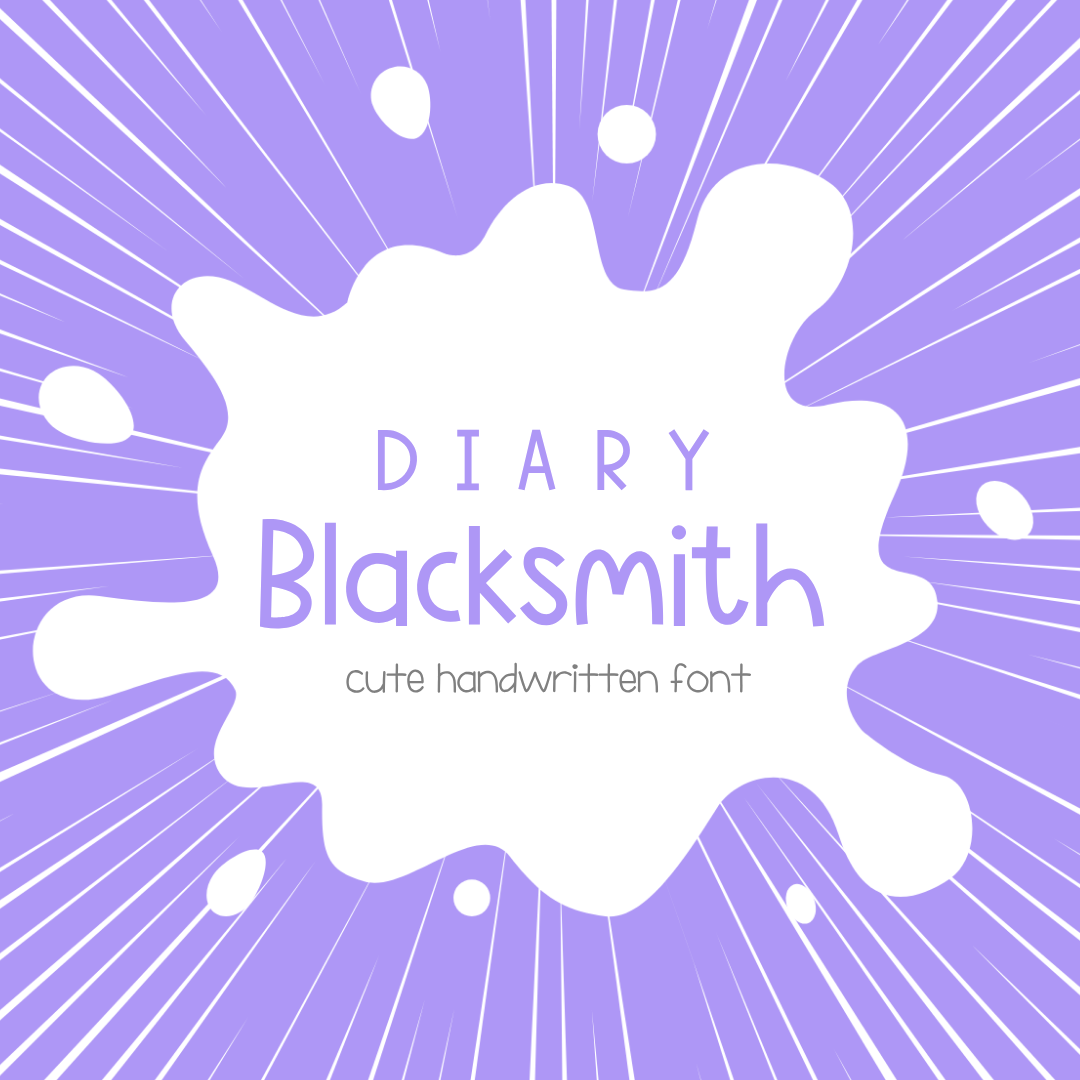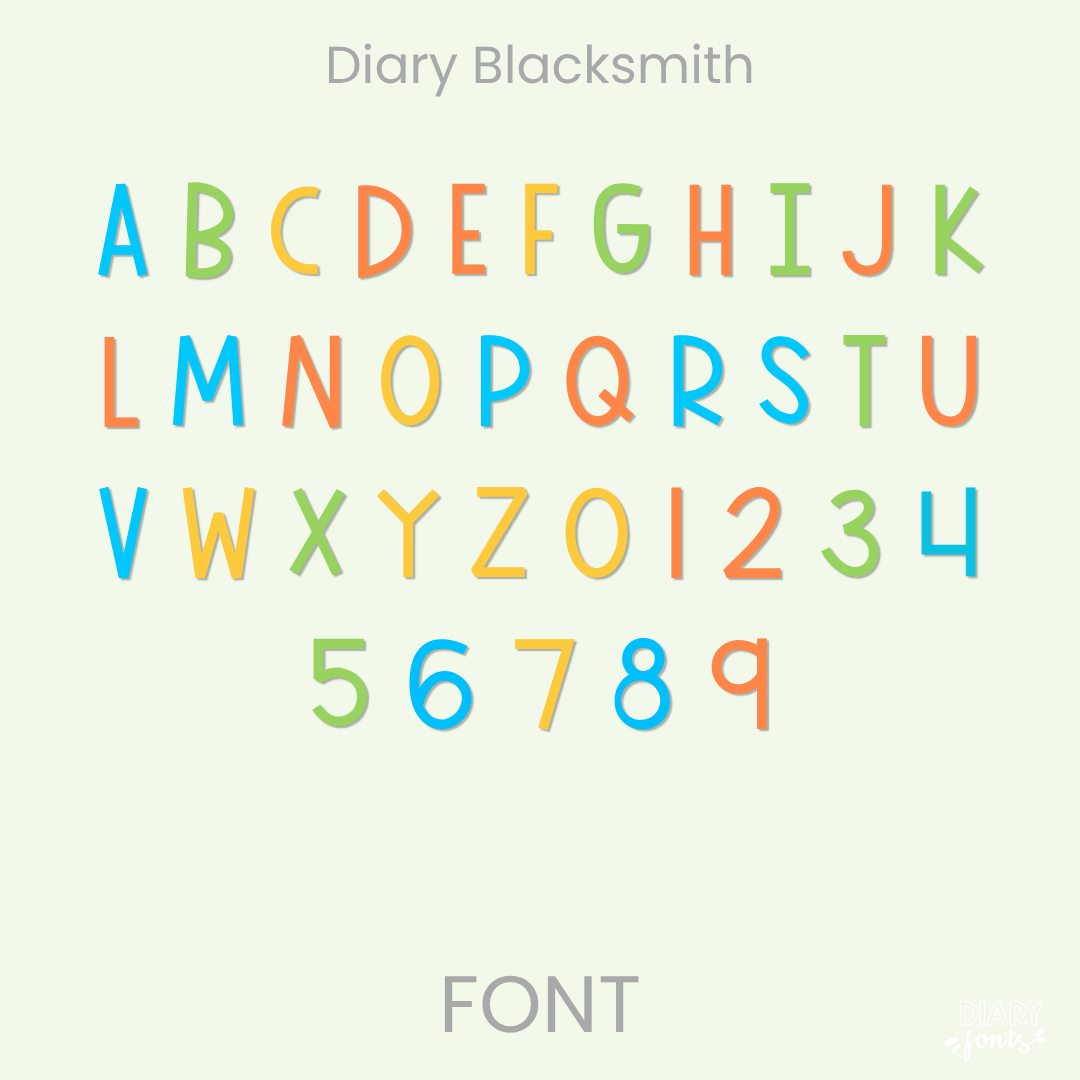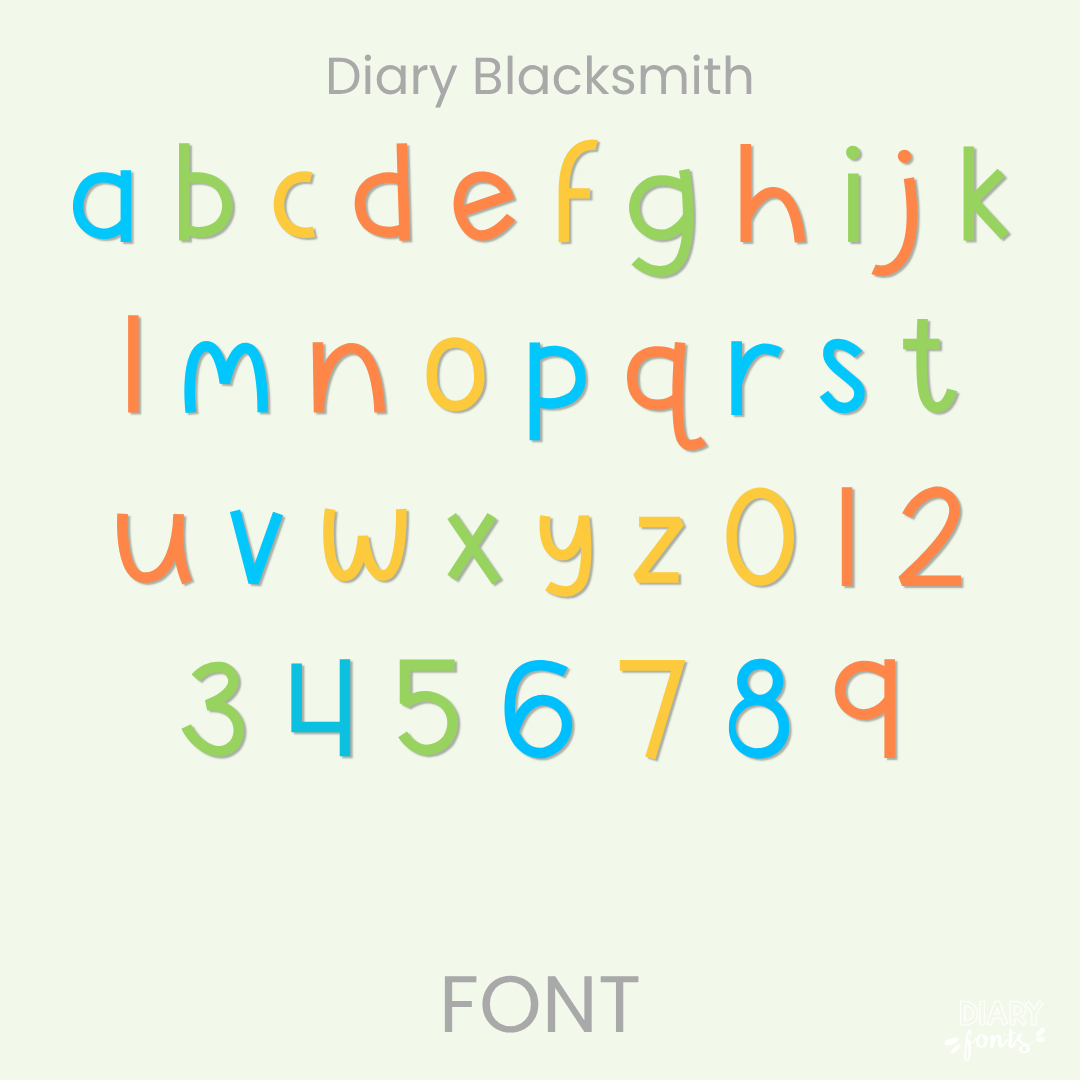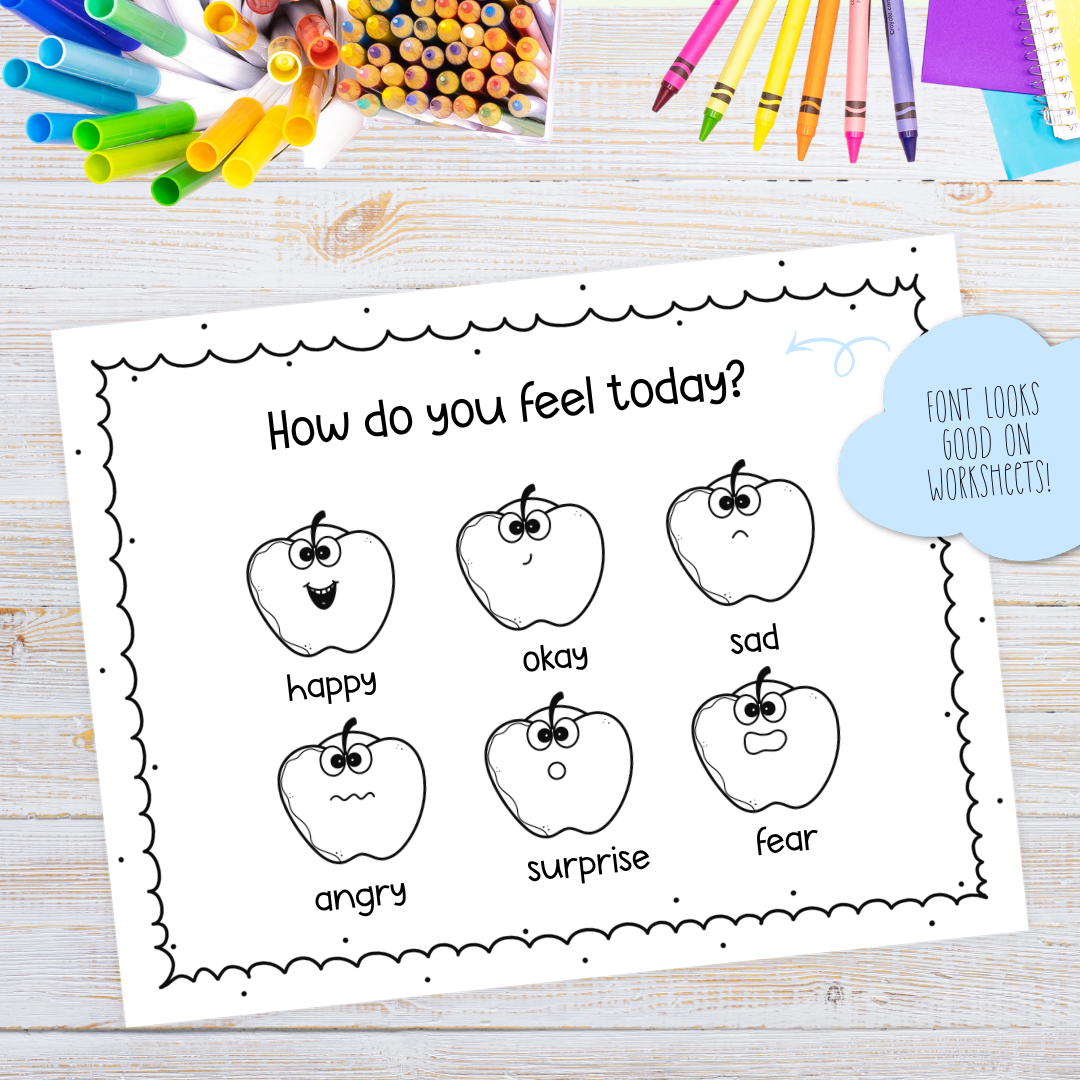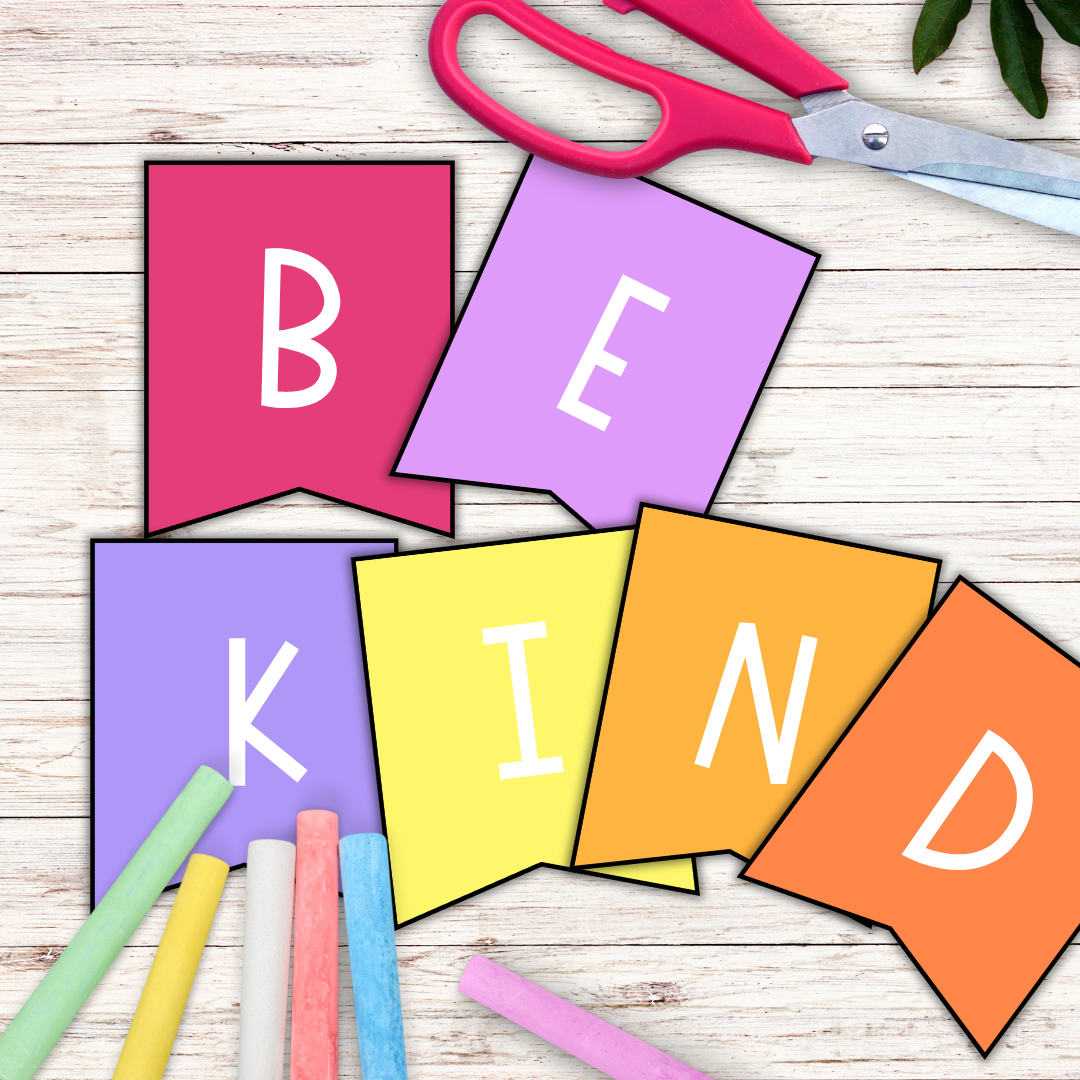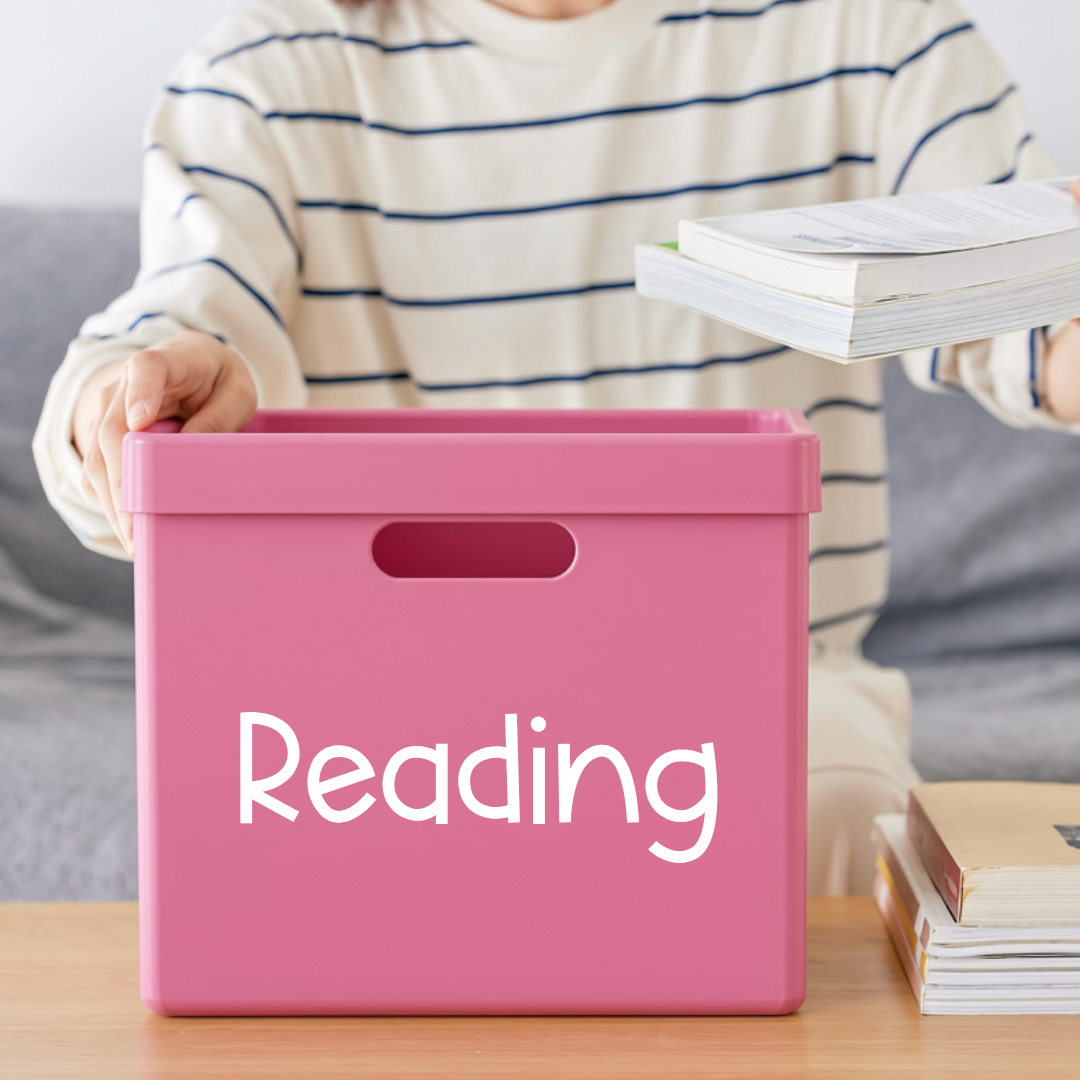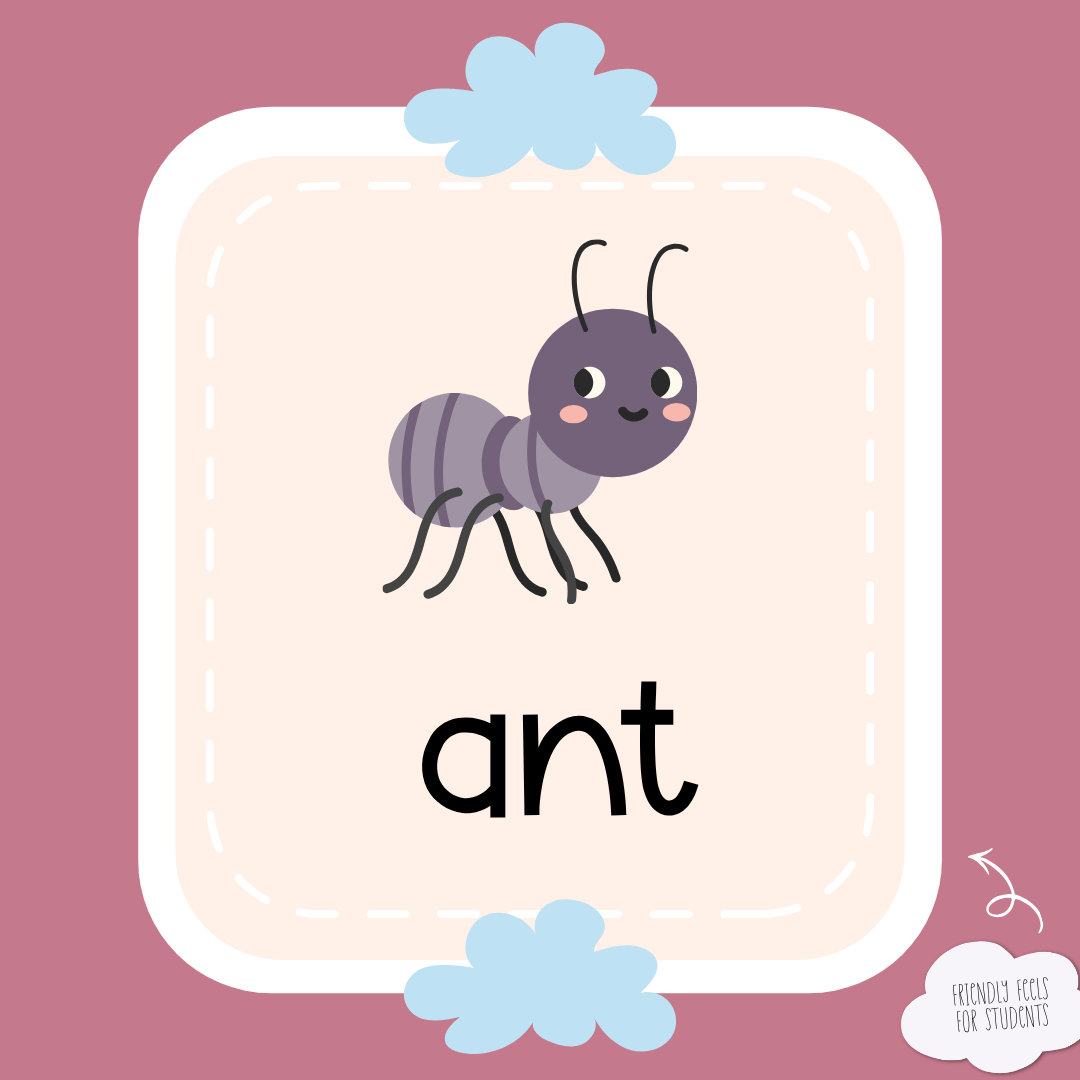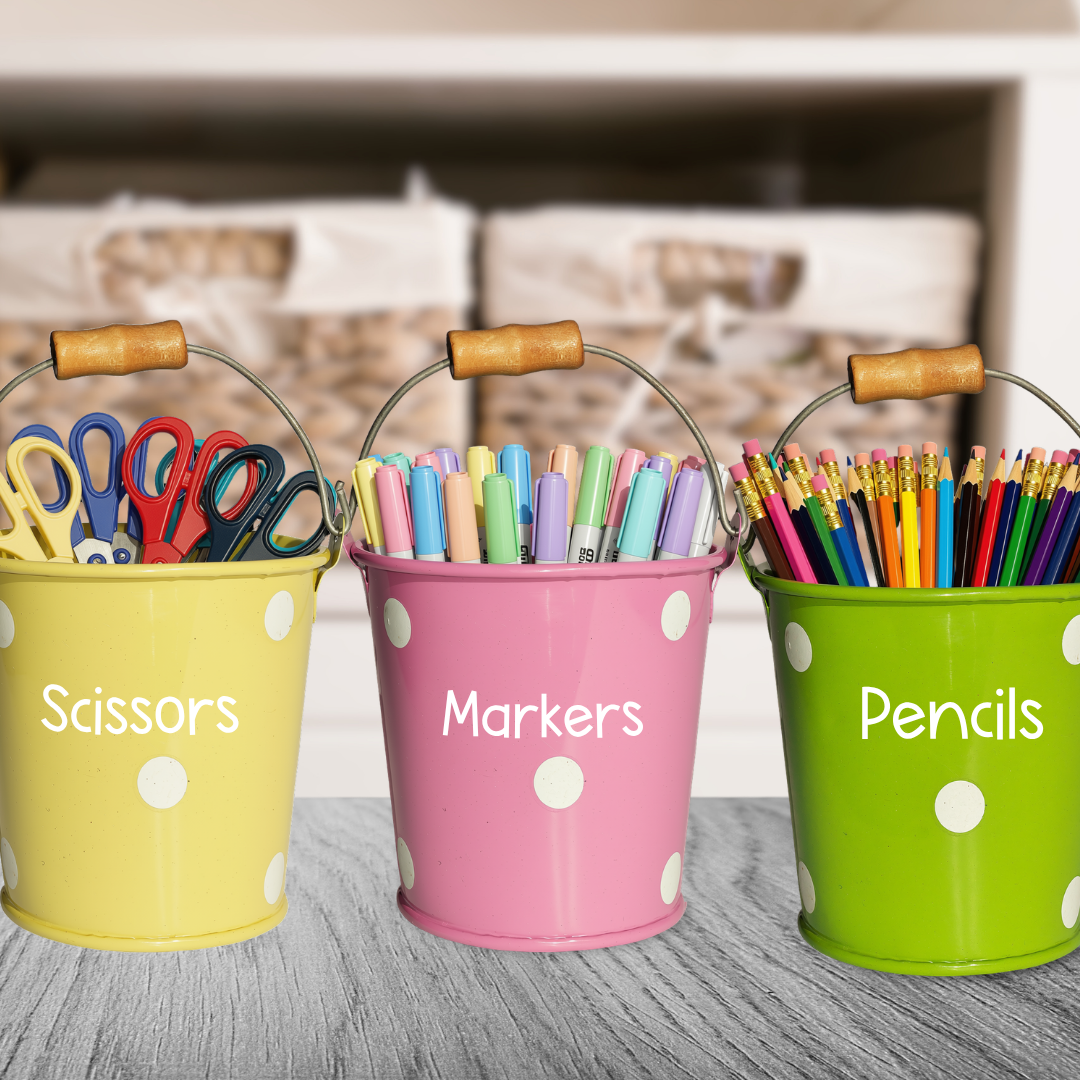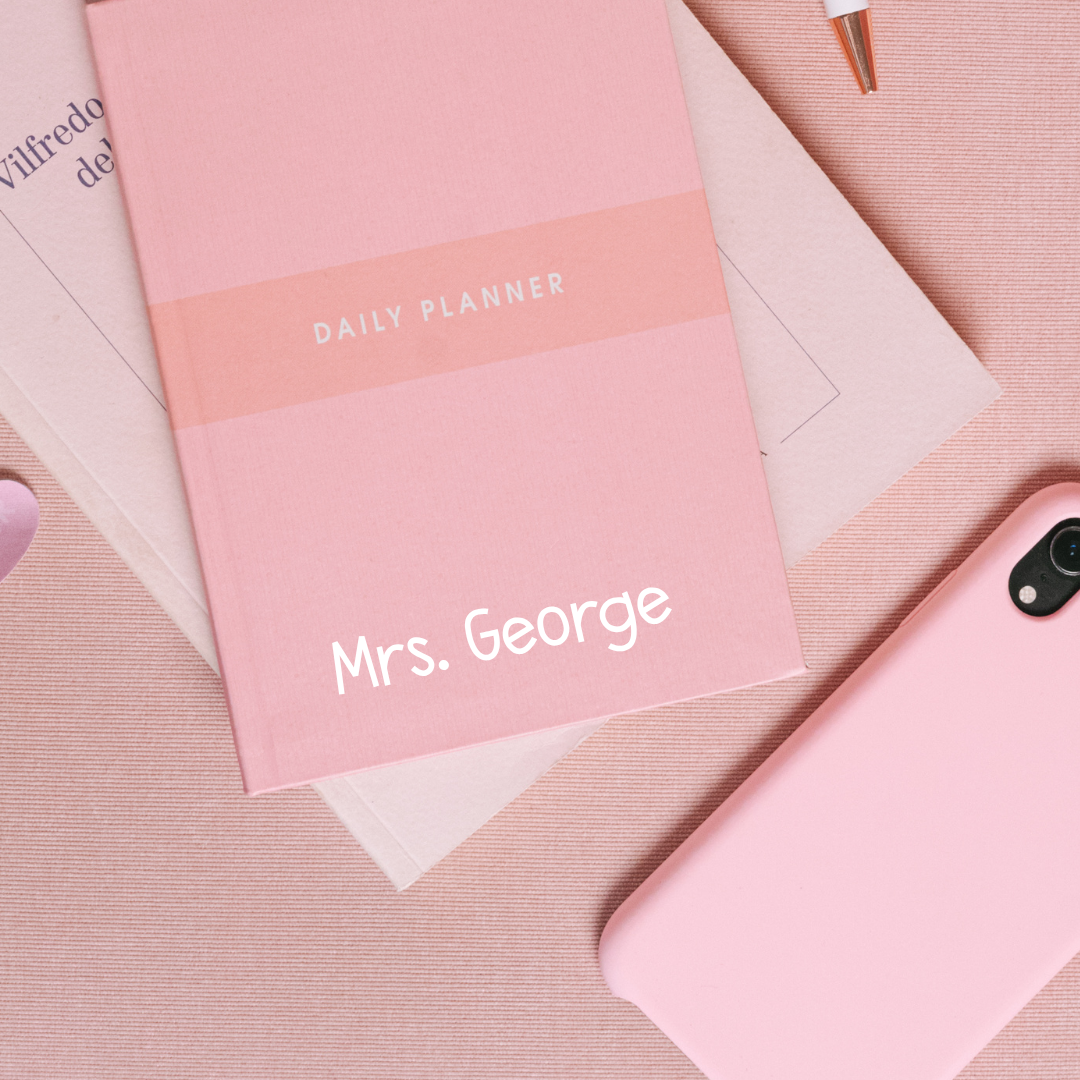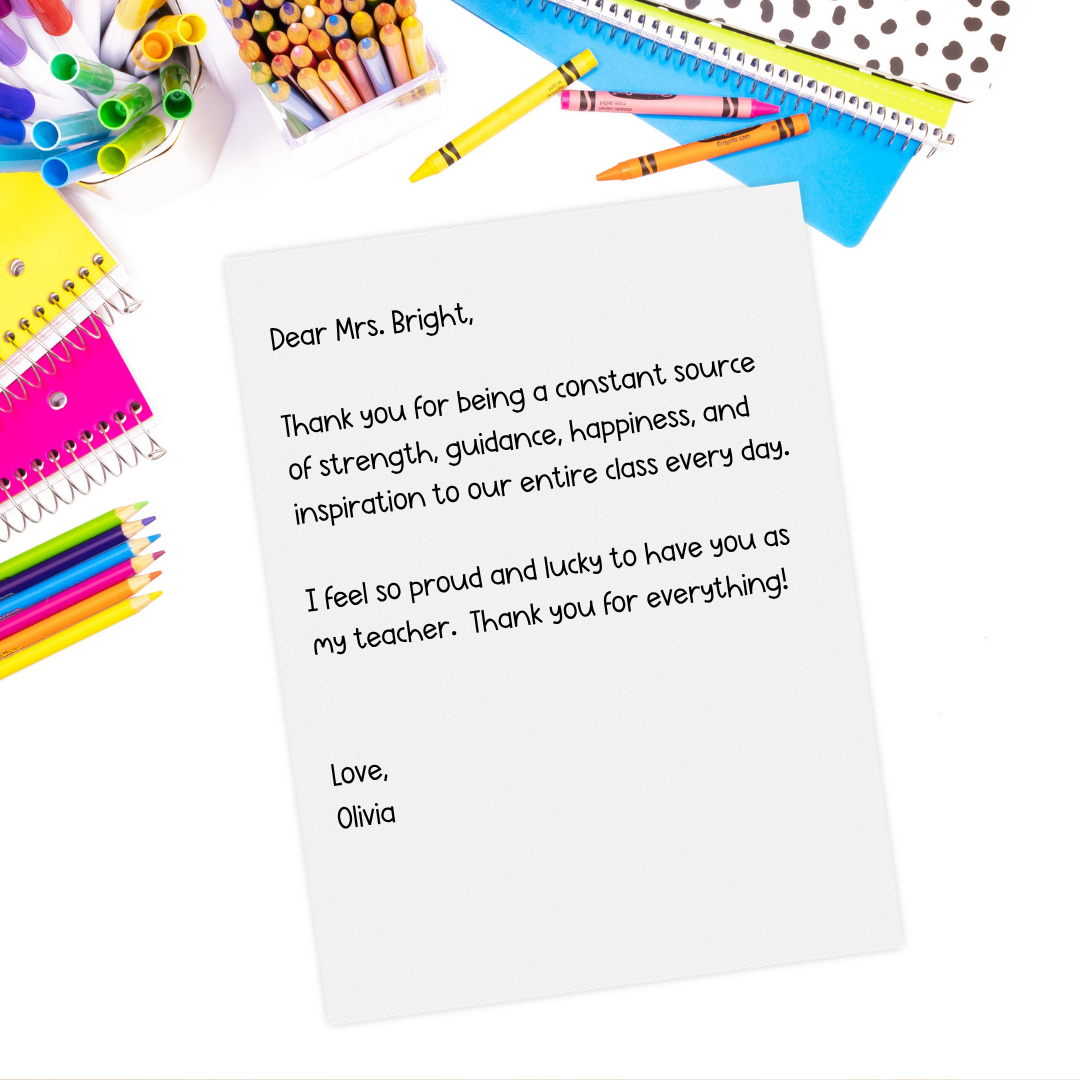
If you’ve been searching for a go-to primary font that captures all the natural, sweet charm of hand-lettered print while keeping your resource layouts looking incredibly structured, Diary Blacksmith is about to become your new absolute favorite creative staple. This lovely typeface features smooth, uniform line weights and beautifully rounded curves that stand nice and level straight along the baseline. Because these hand-drawn letters maintain a balanced, upright structure with generous breathing room between characters, it completely cuts out the background visual clutter—giving you exceptionally clear and legible worksheet typography that your sweet students can track and read with absolute ease.
It is the absolute perfect choice for typing up early childhood reading printables, classroom storage and bin organization labels, morning meeting slide presentations, and elementary educational flashcards. Inside the download, you’ll get a full set of neat uppercase and lowercase print letters, clean matching numbers, and multi-accent markings for complete multilingual support. It drops right into Canva, MS Office, or Adobe on your desktop, and pairs beautifully with Procreate and GoodNotes on your iPad. Whether you’re prepping daily activities for your own sweet classroom or designing a fresh new commercial-use product line for your online teacher shop, this versatile print font adds a touch of confident, warm style to your toolkit.